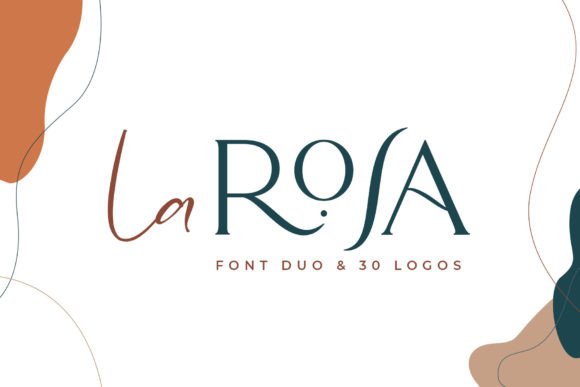
Step into the realm of elegance and sophistication with La Rosa Duo Font, a captivating font duo that will transform your designs into masterpieces. This exquisite font family, crafted by the skilled hands of snipescientist, is a symphony of beauty, perfectly suited for creating stunning wedding names that exude romance and charm.
La Rosa's delicate serif and enchanting script dance together in perfect harmony, creating a visual spectacle that is both timeless and utterly captivating. With its 30 professionally designed logo templates, La Rosa empowers you to effortlessly elevate your brand's identity. Unleash your creativity and explore a boundless realm of possibilities, crafting logos that radiate sophistication and leave a lasting impression.
The La Rosa Duo Font is more than just a font; it's an invitation to embark on a journey of self-expression and artistic exploration. Its PUA encoding allows for effortless access to a treasure trove of glyphs and ligatures, granting you the freedom to customize your designs to perfection. Whether you're a seasoned designer or just starting your creative journey, La Rosa will guide you effortlessly, helping you achieve stunning results with minimal effort.
With La Rosa Duo Font, you hold the key to unlocking a world of design possibilities. Its versatility extends beyond wedding names, making it the perfect choice for branding, logos, invitations, greeting cards, social media graphics, and countless other projects. Let La Rosa's allure captivate your audience and elevate your designs to new heights of artistry.